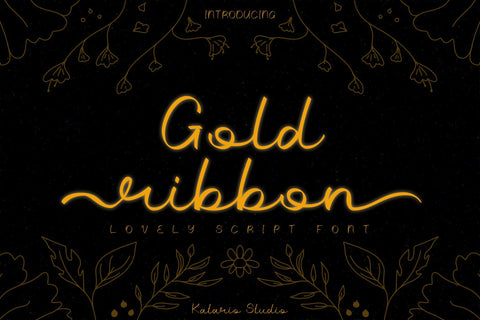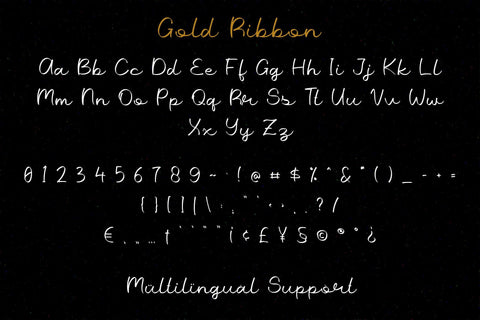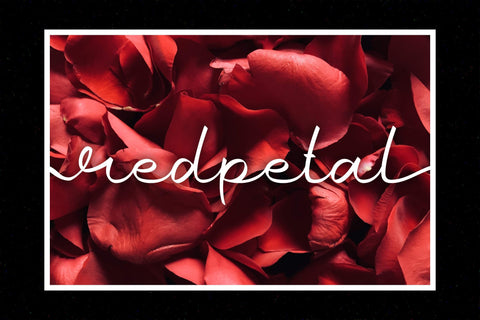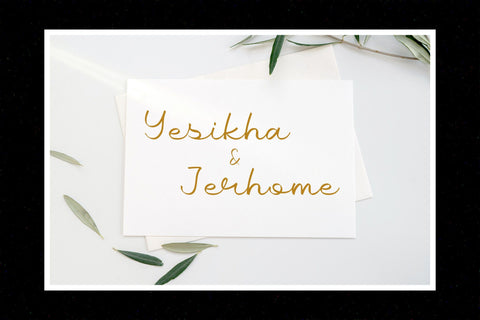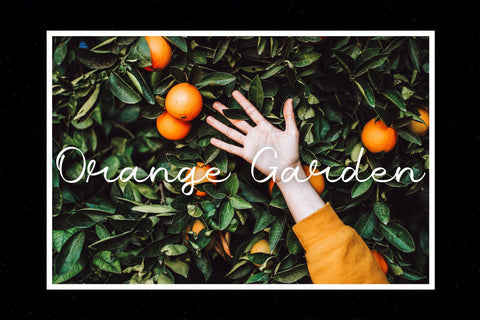
Gold Ribbon | Lovely Script Font
Gold Ribbon is a lovely script font full of alternates. Created with a touch of elegance. This beautiful and elegance font perfect for any craft, weddings, greetings card for christmas, invitation cards. This is the perfect font for outstanding designs.